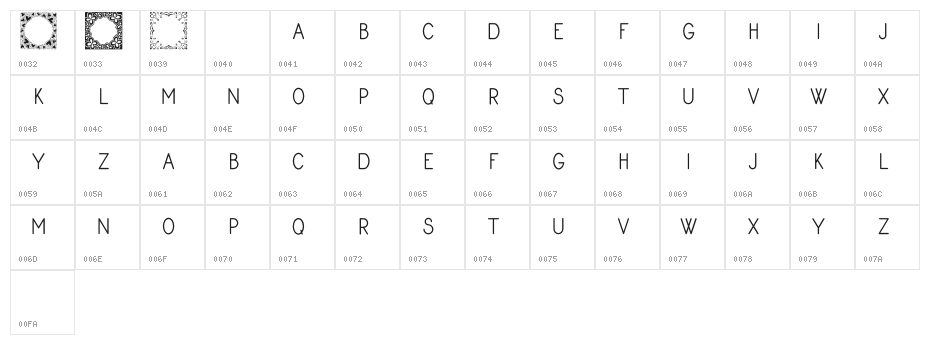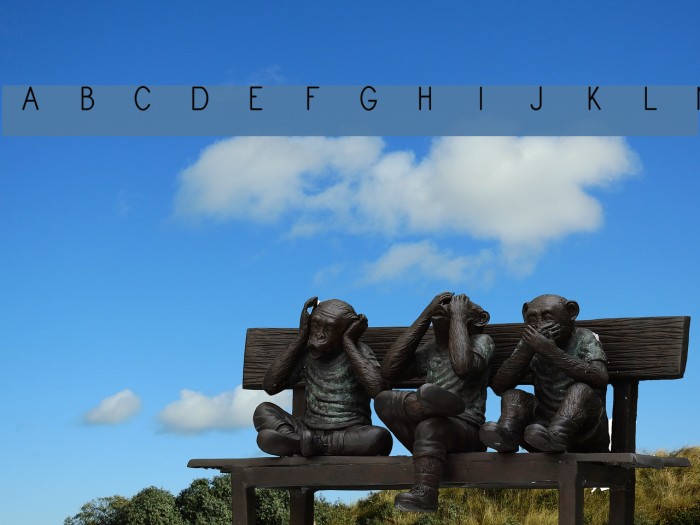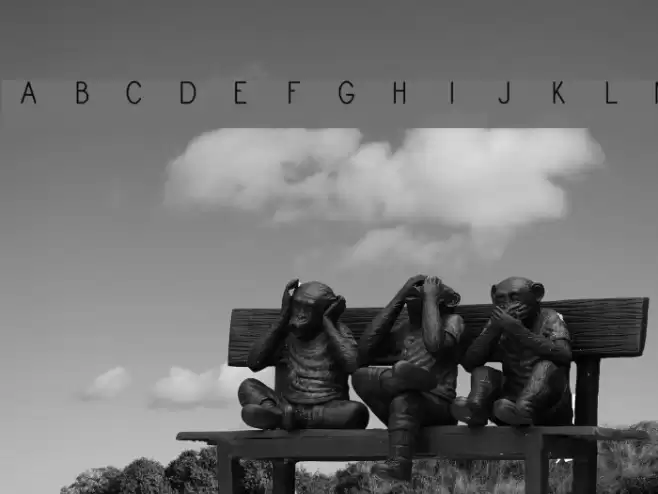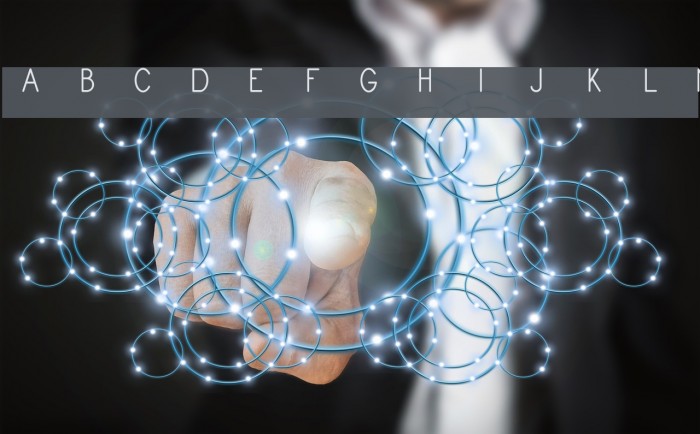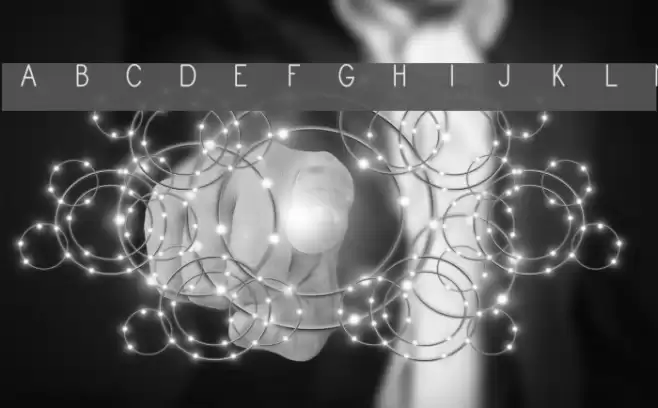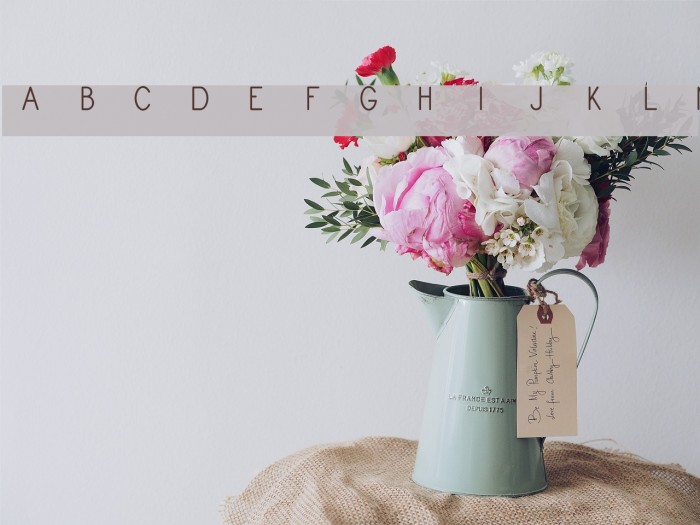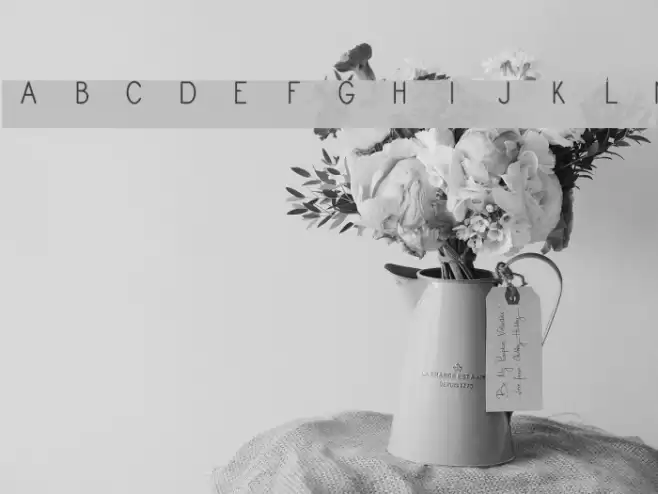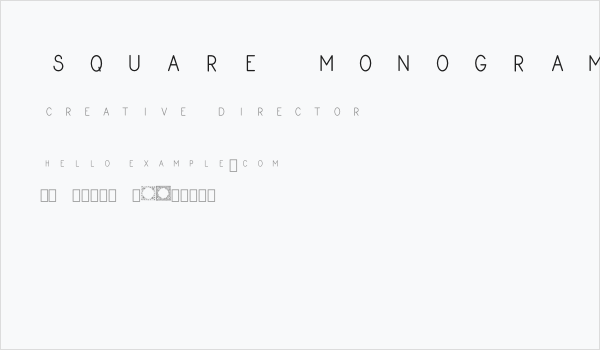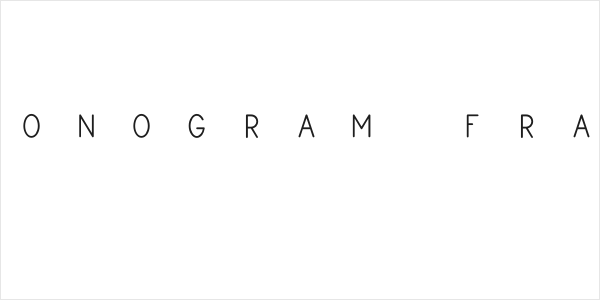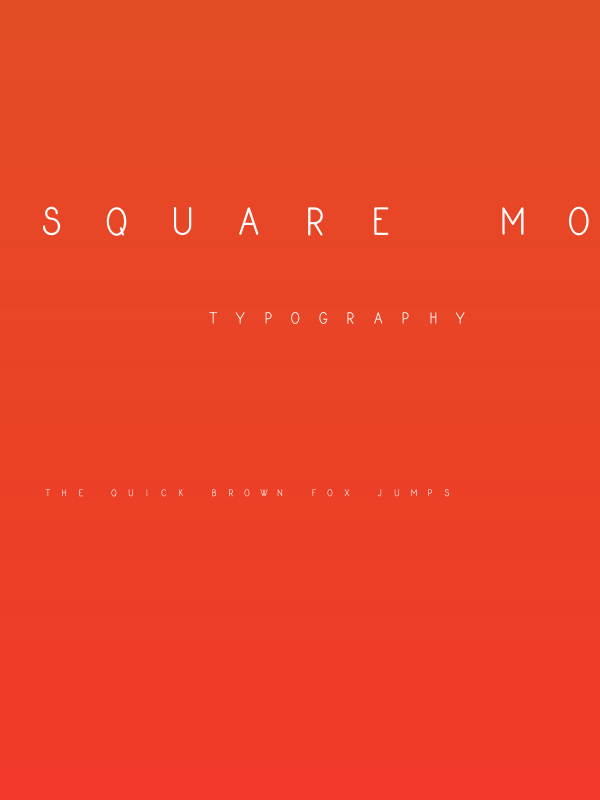
Square Monogram Frames Demo Font
Square Monogram Frames Demo Description
This font features a clean and minimalist design with thin, evenly spaced lines that create a modern and elegant appearance. The uppercase letters are uniform in height and width, contributing to a balanced and harmonious look. The characters are well-defined, with a slight geometric influence that enhances their clarity and readability. The monogram frames add a decorative touch, offering intricate patterns that can be used creatively in various design projects. These frames are perfect for adding a personalized and sophisticated element to invitations, stationery, or branding materials.
| Use Case | Logos, Decorative elements |
| Proposed Projects | Ideal for wedding invitations, personalized stationery, branding, and decorative monograms. |